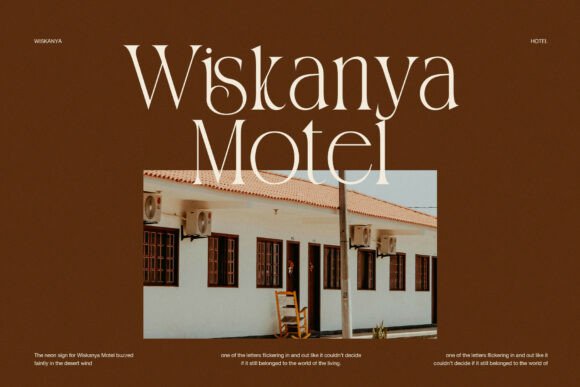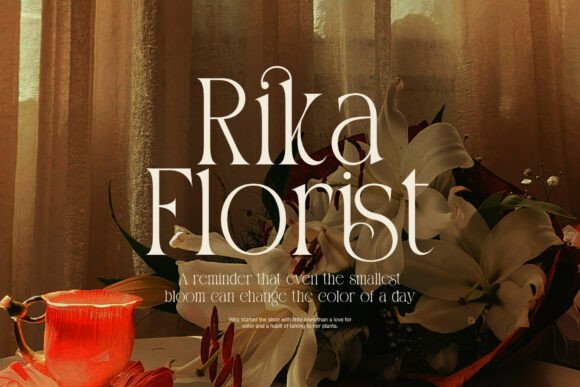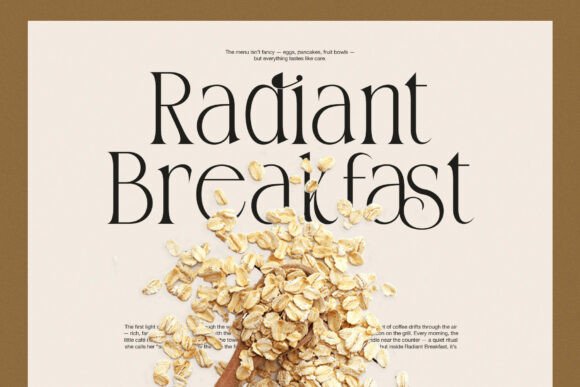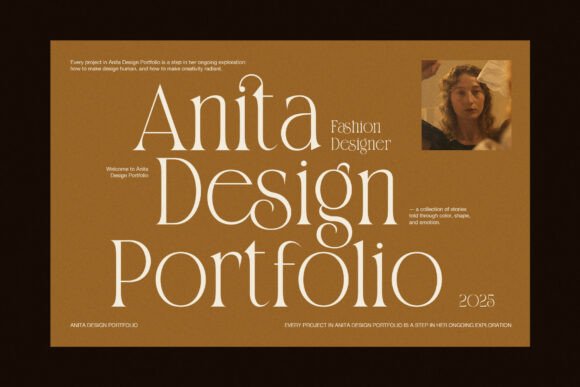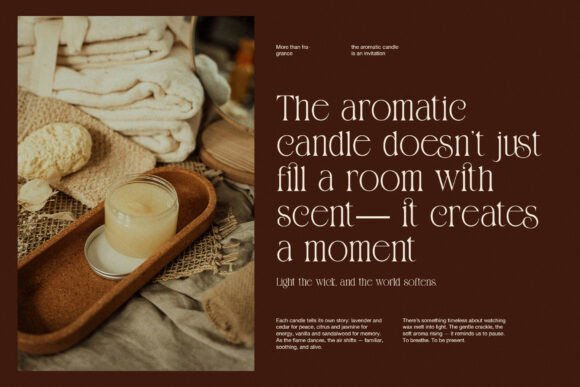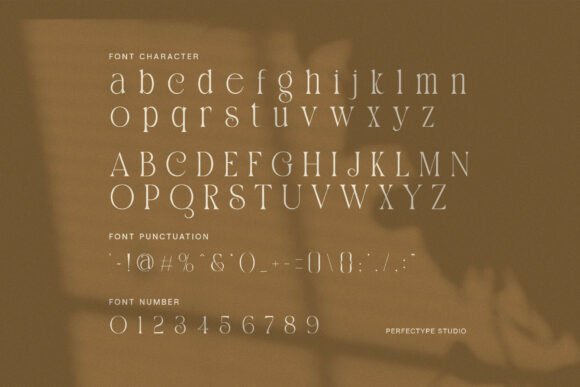
Introduction to Cigas Font
Masgi is a vintage elegant serif font designed to bring warmth, character, and refined beauty into modern design projects.
Inspired by classic editorial typography, Masgi blends bold letterforms with soft curves and graceful details As a result, it delivers a timeless look while still feeling expressive and contemporary.